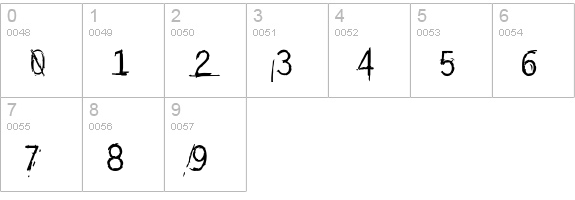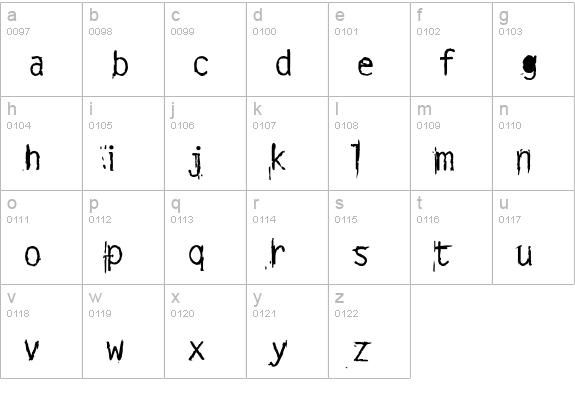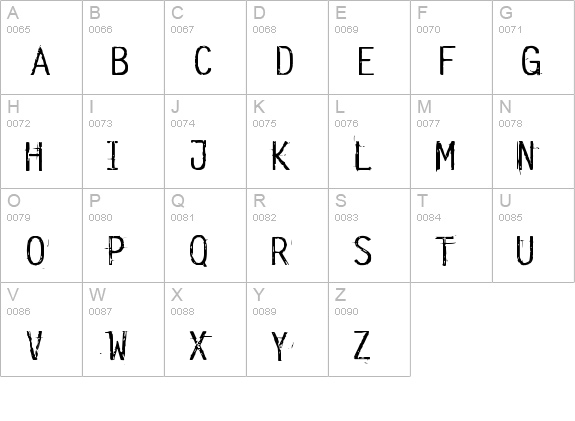
EscalidoGothico Font Details
Introducing EscalidoGothico, a stunning and captivating font that combines elegance with a touch of gothic flair. This unique typeface features intricate details and sharp edges, making it perfect for adding a bold statement to your designs. With its elaborate design, EscalidoGothico is sure to stand out and leave a lasting impression. Whether you're working on a logo, branding, posters, or any other project, this font will elevate your work to the next level. The best part? EscalidoGothico is available for free download at FontsMarket.com. Now you can enjoy the beauty and sophistication of this font without any cost. Don't miss out on the opportunity to enhance your designs with the mesmerizing EscalidoGothico font. Download it today and let your creativity shine!